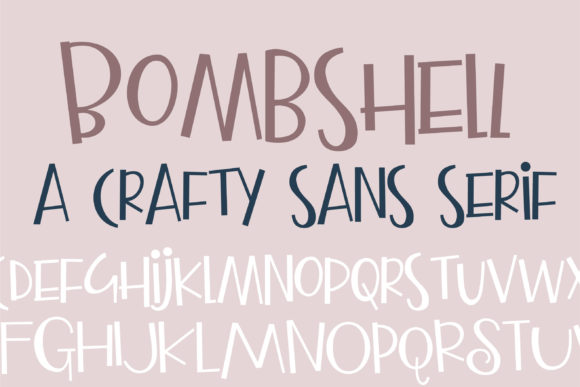
Welcome to a typographic playground where creativity and fun go hand in hand. Meet PN Bombshell Font, a whimsical and delightful display font ready to infuse your designs with a touch of quirky charm. Step into a world where letters dance with character and personality, inviting you to create visual masterpieces that exude warmth and joy.
Crafted with meticulous attention to detail by the talented artisans at Illustration Ink, PN Bombshell Font is a testament to the power of playful typography. Its informal style and casual vibe make it the perfect companion for children's books, greeting cards, posters, and any project that calls for a friendly and approachable touch.
Imagine the smiles that will light up the faces of young readers as they embark on enchanting adventures with PN Bombshell Font as their guide. Its playful curves and energetic strokes bring stories to life, creating a captivating reading experience that will leave children begging for more.
Illustrators and designers, prepare to be captivated by PN Bombshell Font's versatility. With its wide range of applications, this font is your secret weapon for creating eye-catching logos, vibrant social media posts, and invitations that pop off the page. Its unique character shines through, adding a touch of whimsy to everything it adorns.
But PN Bombshell Font is more than just a pretty face; it's a storyteller. Its quirky style lends itself perfectly to crafting engaging narratives that capture the imagination. Whether you're crafting a whimsical children's book or designing a playful marketing campaign, PN Bombshell Font will help you weave tales that resonate with your audience.
So, dare to be different, embrace the unconventional, and let PN Bombshell Font lead you on a typographic adventure like no other. Let your creativity soar as you create designs that exude joy, spark laughter, and leave an unforgettable impression on all who encounter them.